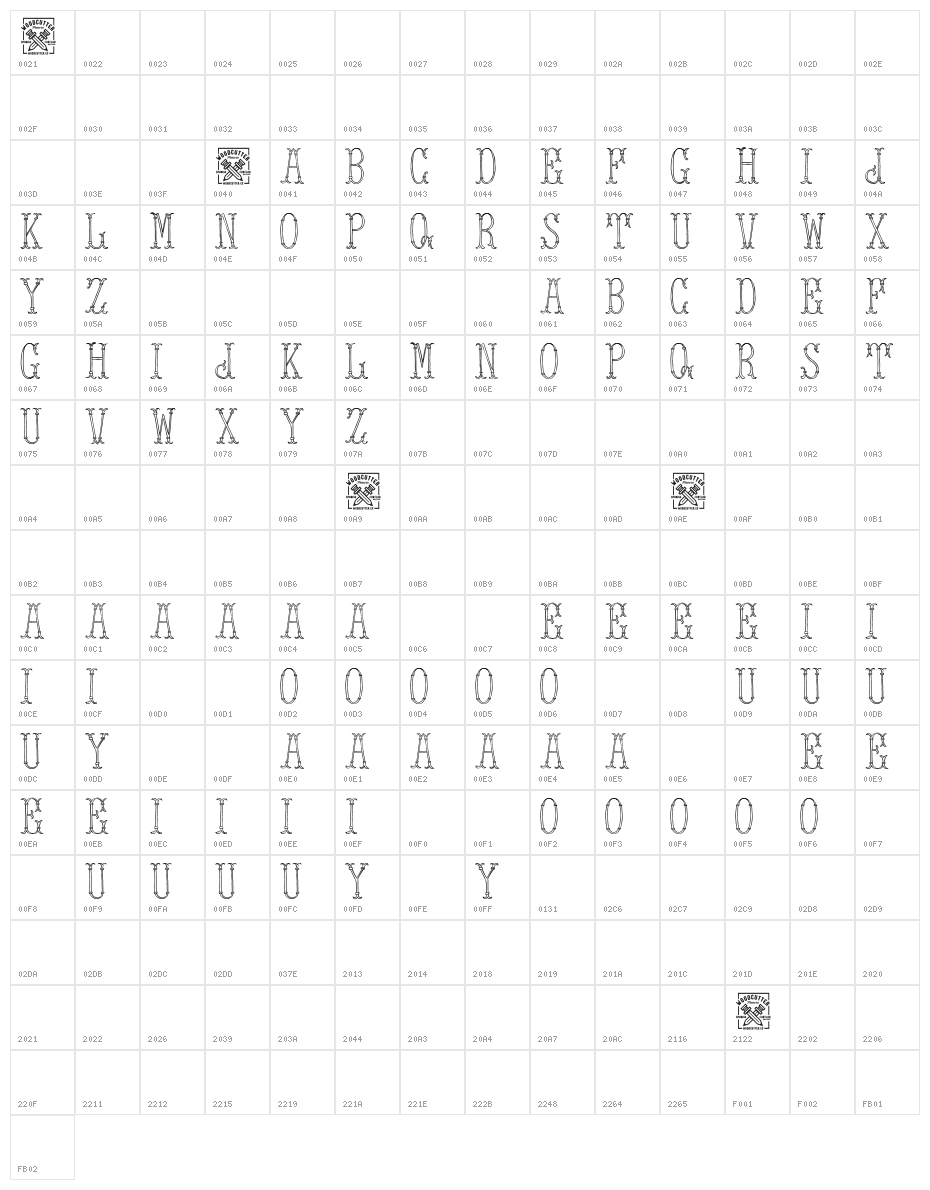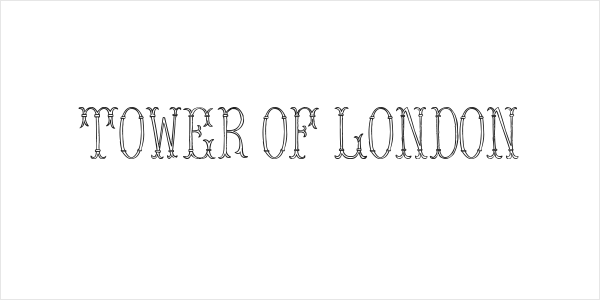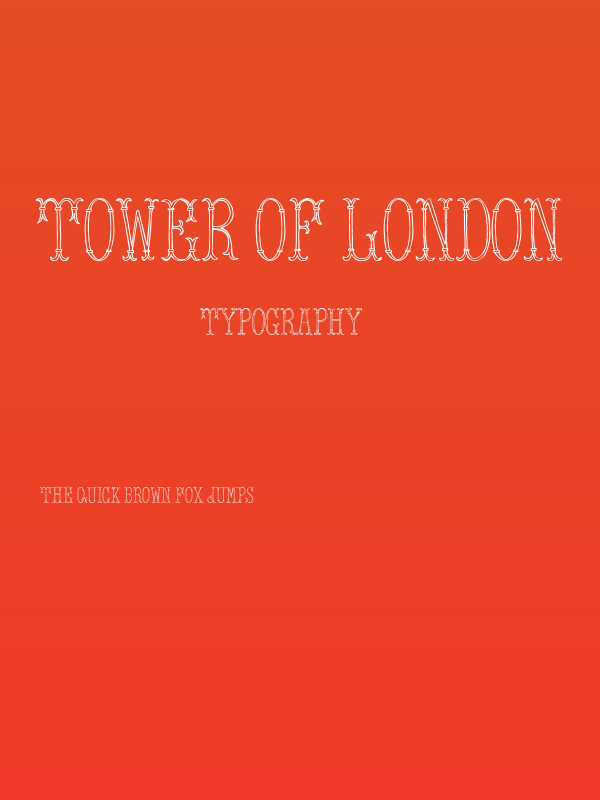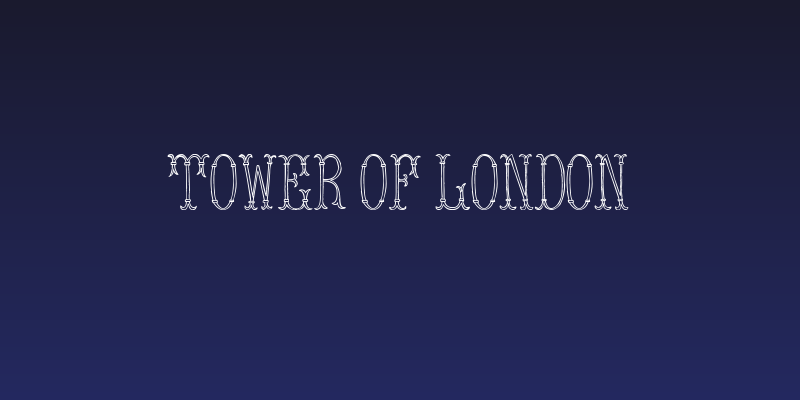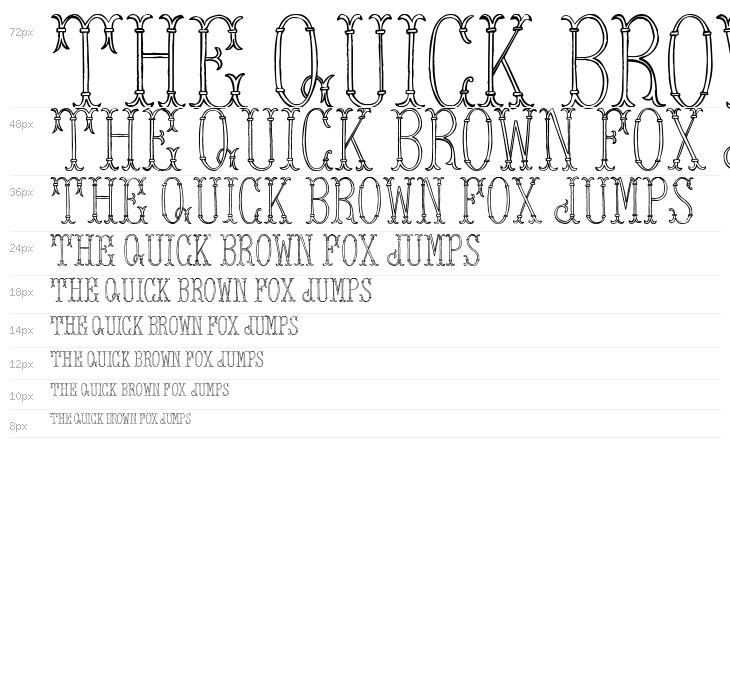
Tower of London Font
Tower of London Description
This font features an intricate and decorative style, characterized by ornate embellishments on each letter. The uppercase letters are tall and slender, with elaborate serifs that add a touch of elegance and complexity. The design incorporates a vintage aesthetic, reminiscent of historical typefaces used in traditional signage or formal documents. Each character is uniquely crafted with flourishes that enhance its visual appeal, making it suitable for projects that require a touch of sophistication and grandeur.